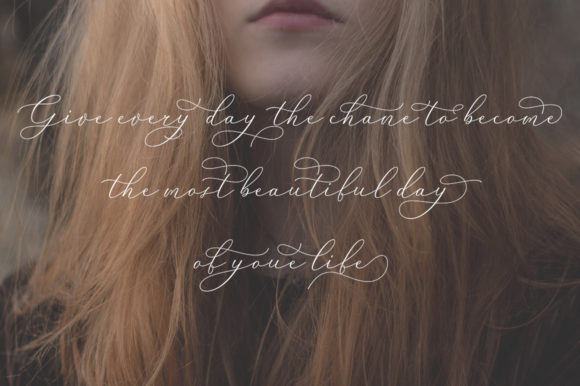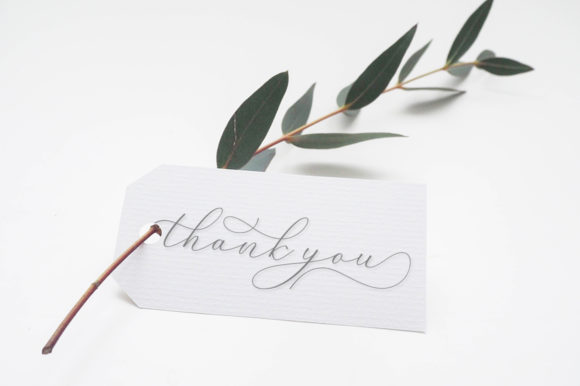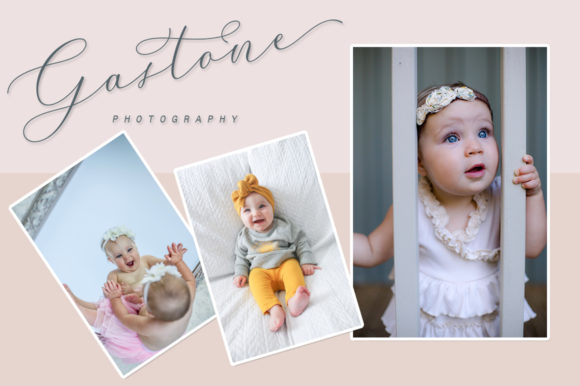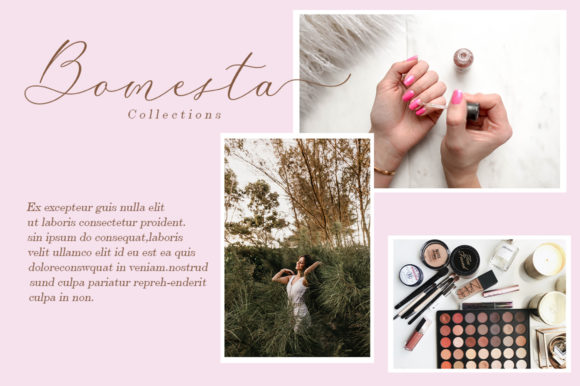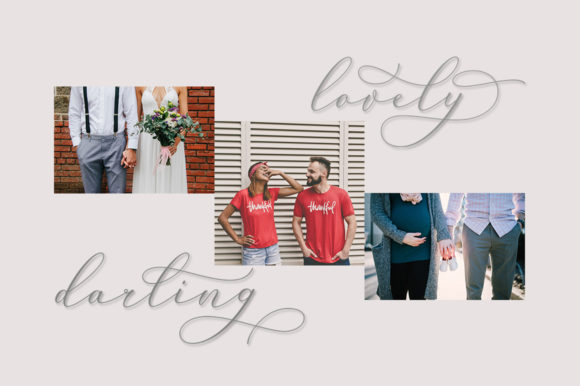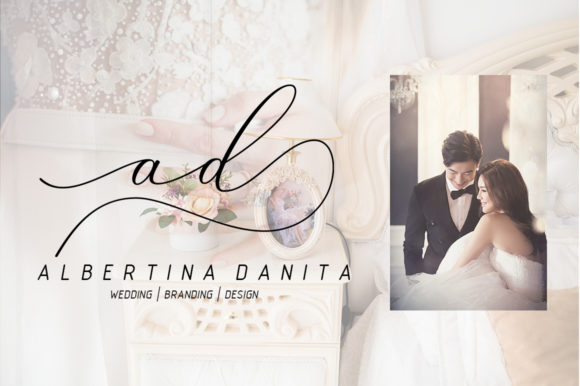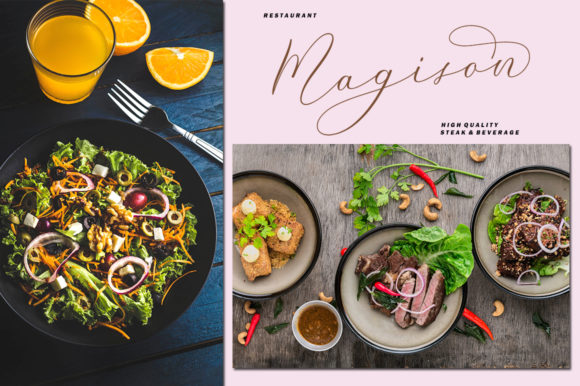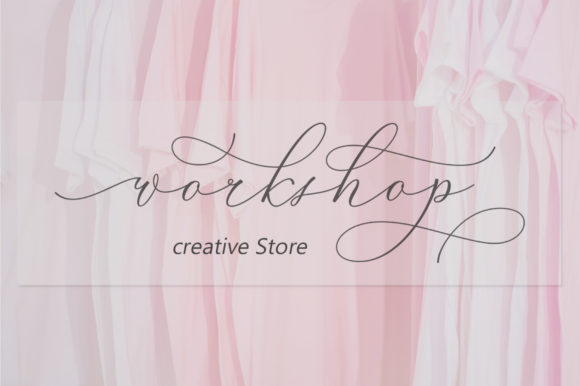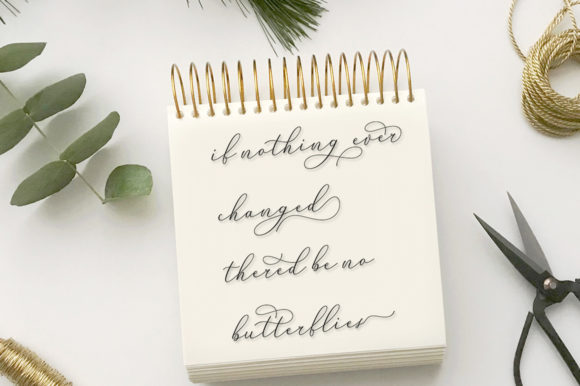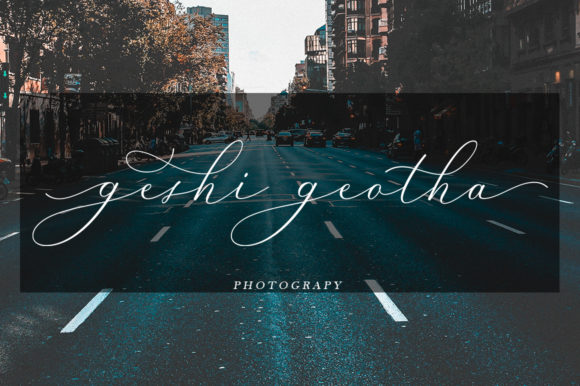
Alove Hoolena Font
Alove Hoolena is a sweet hand-lettered font. It has a casual, yet dynamic look and an amazing dancing baseline.
It can be use to add an authentic look to your logos, branding, greeting cards, quotes, wedding stationary, and much more!